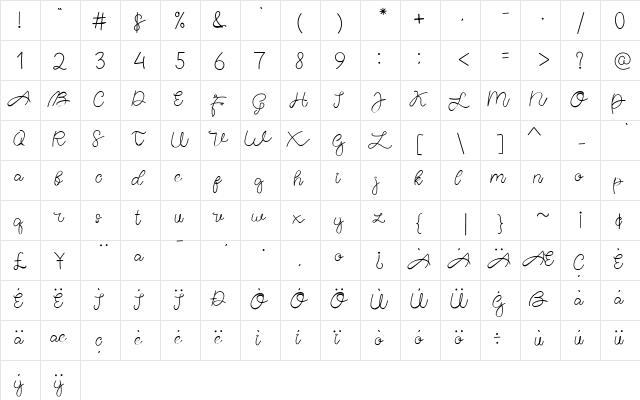
Agatta Script Regular
Design Context for Agatta Script Typeface
Agatta Script brings a calligraphic fluidity to the page — its connecting strokes and expressive curves give it an unmistakably human quality.